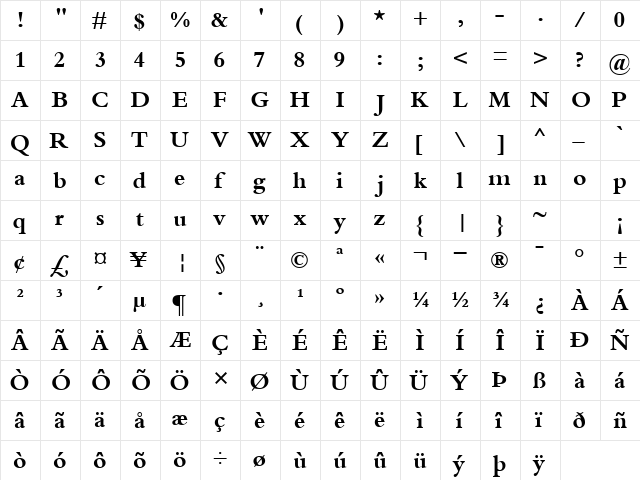
KuriakosBlackSSK Bold
Design Context for KuriakosBlackSSK Typeface
KuriakosBlackSSK offers clean, dependable letterforms without strong stylistic allegiance, making it a practical choice for designers who need flexibility. Its bold stroke weight gives it real presence on the page.